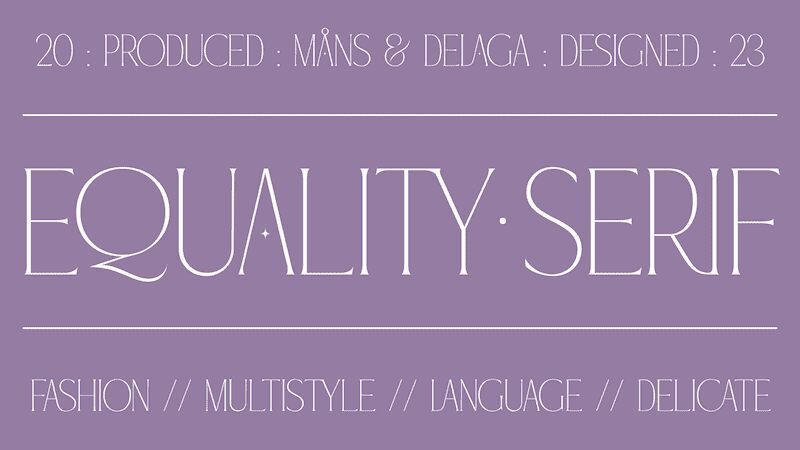
Equality Serif, designed by the renowned Mans Greback, is a delicate serif font that exudes elegance and sophistication. Its extra-light weight and semi-condensed width make it perfect for projects that require a touch of finesse, such as wedding invitations, luxury brand logos, or high-end fashion magazines. With its clean lines and classic styling, Equality Serif is a font type that embodies timeless beauty and refinement. Whether you're designing marketing materials for a luxury travel company or creating a high-end cookbook, Equality Serif will elevate your project to the next level with its understated yet impactful presence.